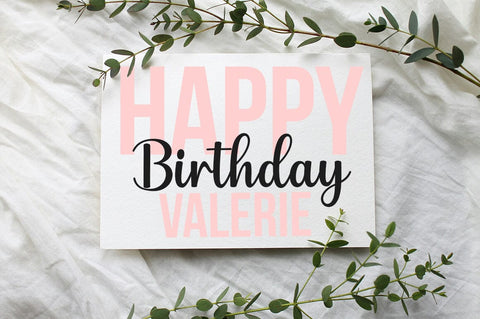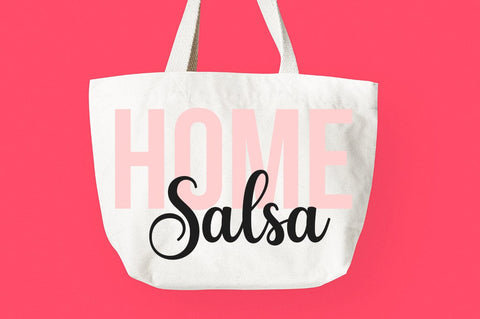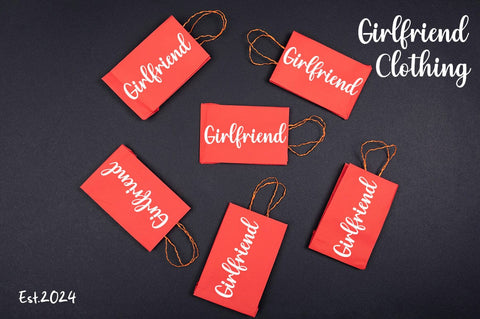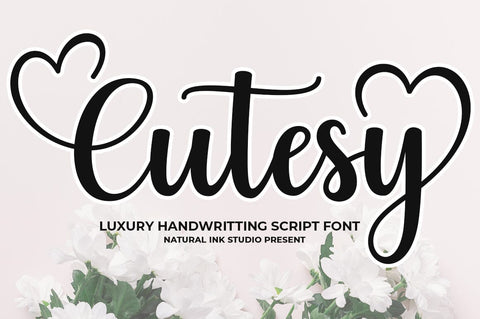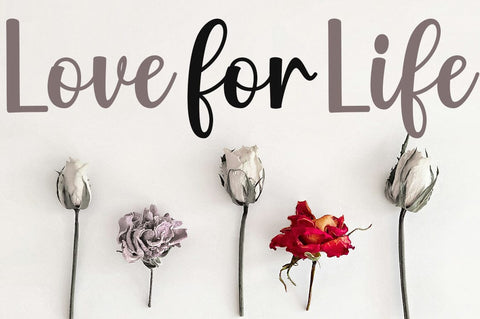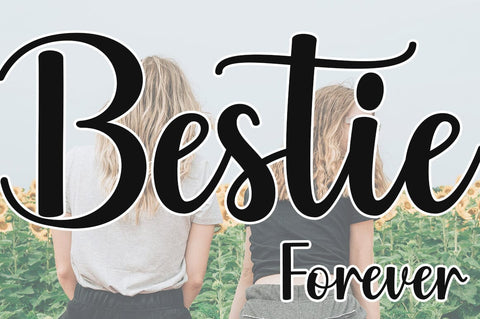
Cutesy
mmerse yourself in the magic of Cutesy Script, an artful blend of contemporary calligraphy and effortless charm. Emitting a casual yet exquisite allure, this font proudly parades its delightful swash that makes each stroke a visual treat. A masterstroke of versatility, Cutesy Script adorns your projects – be it logos, product wraps, wedding invites, brand identities, or prominent headlines. Grace your signage, labels, and signatures with its elegance. Transform book covers, posters, quotes, and beyond into pieces of art. Cutesy Script – where exquisite style meets diverse applications.